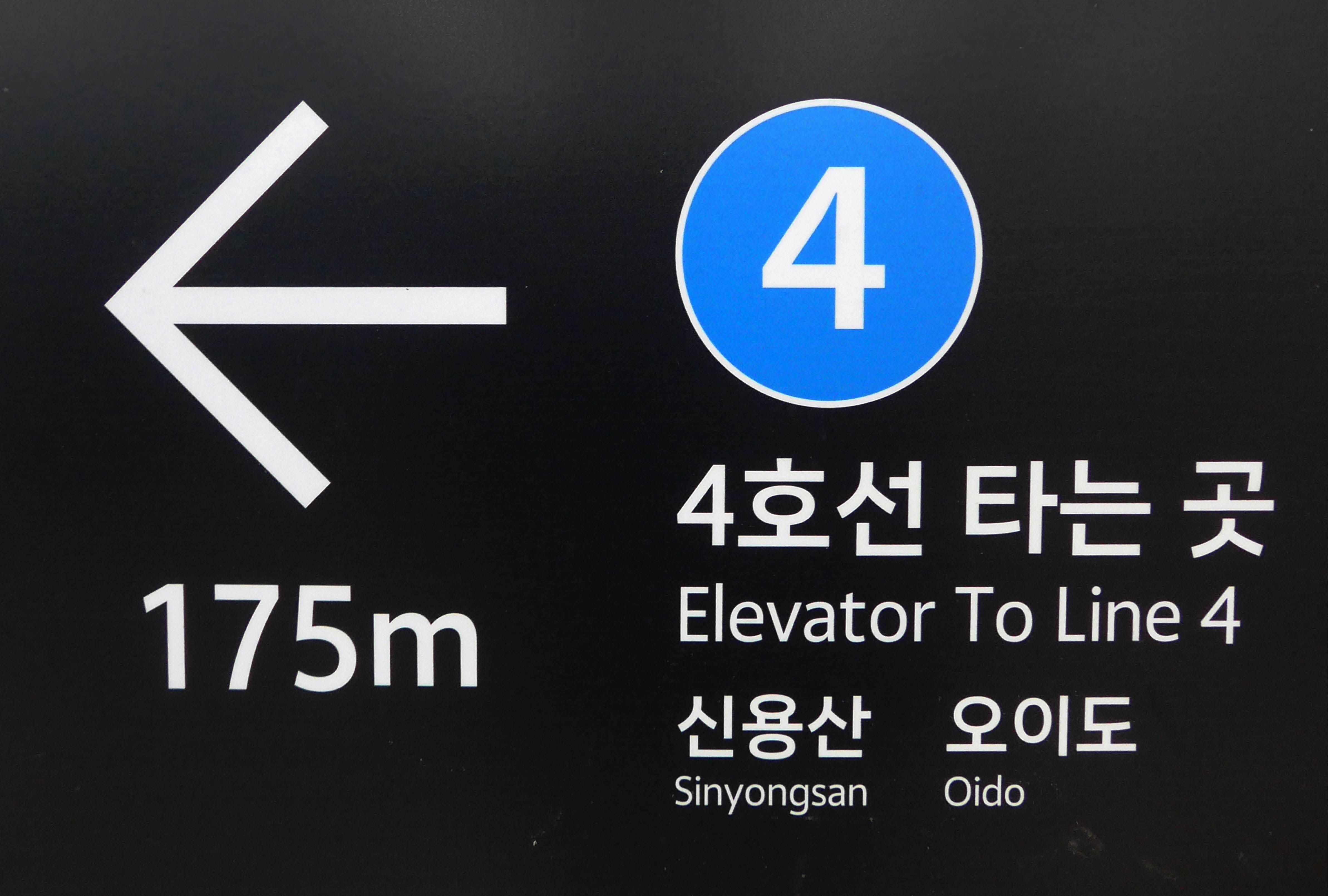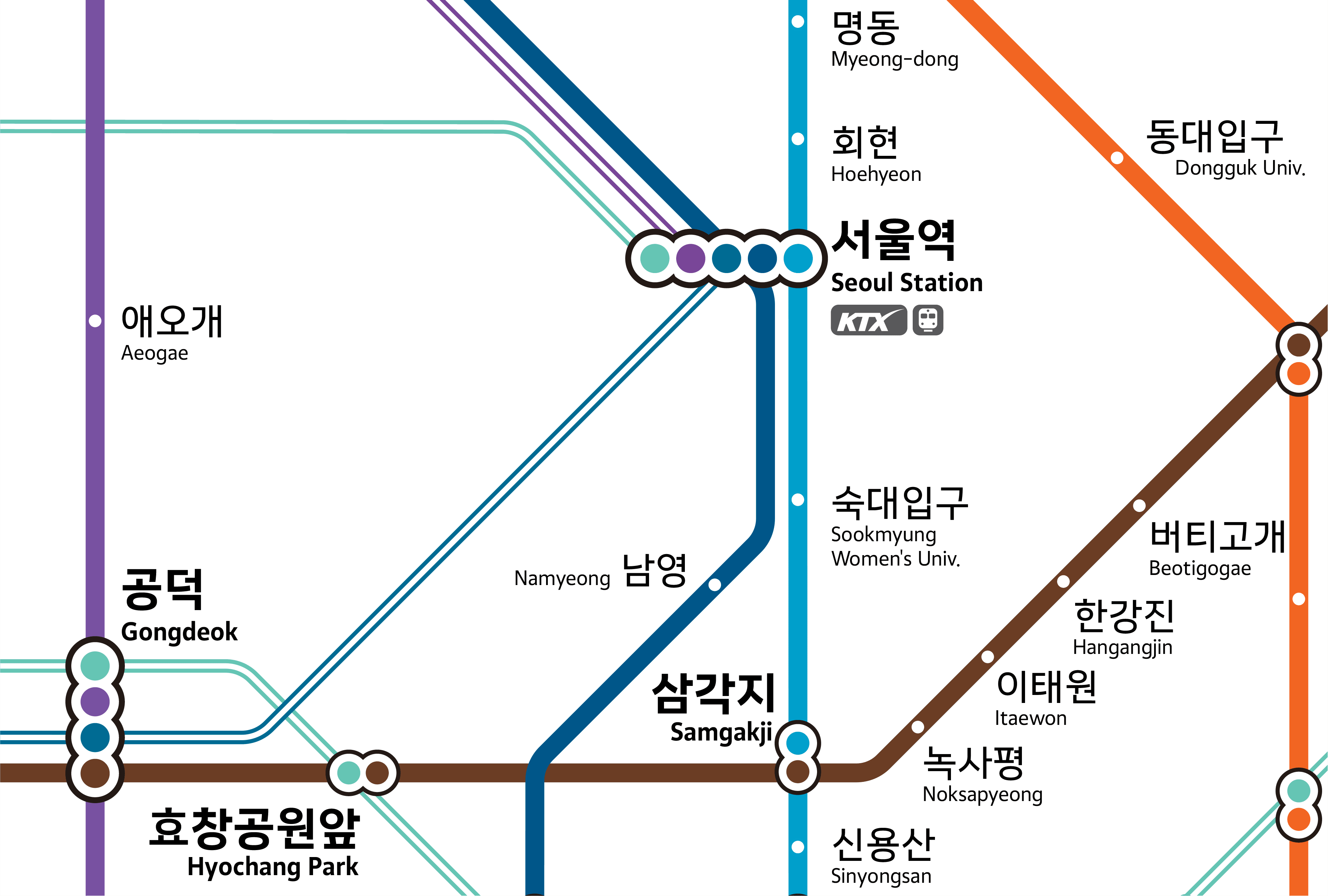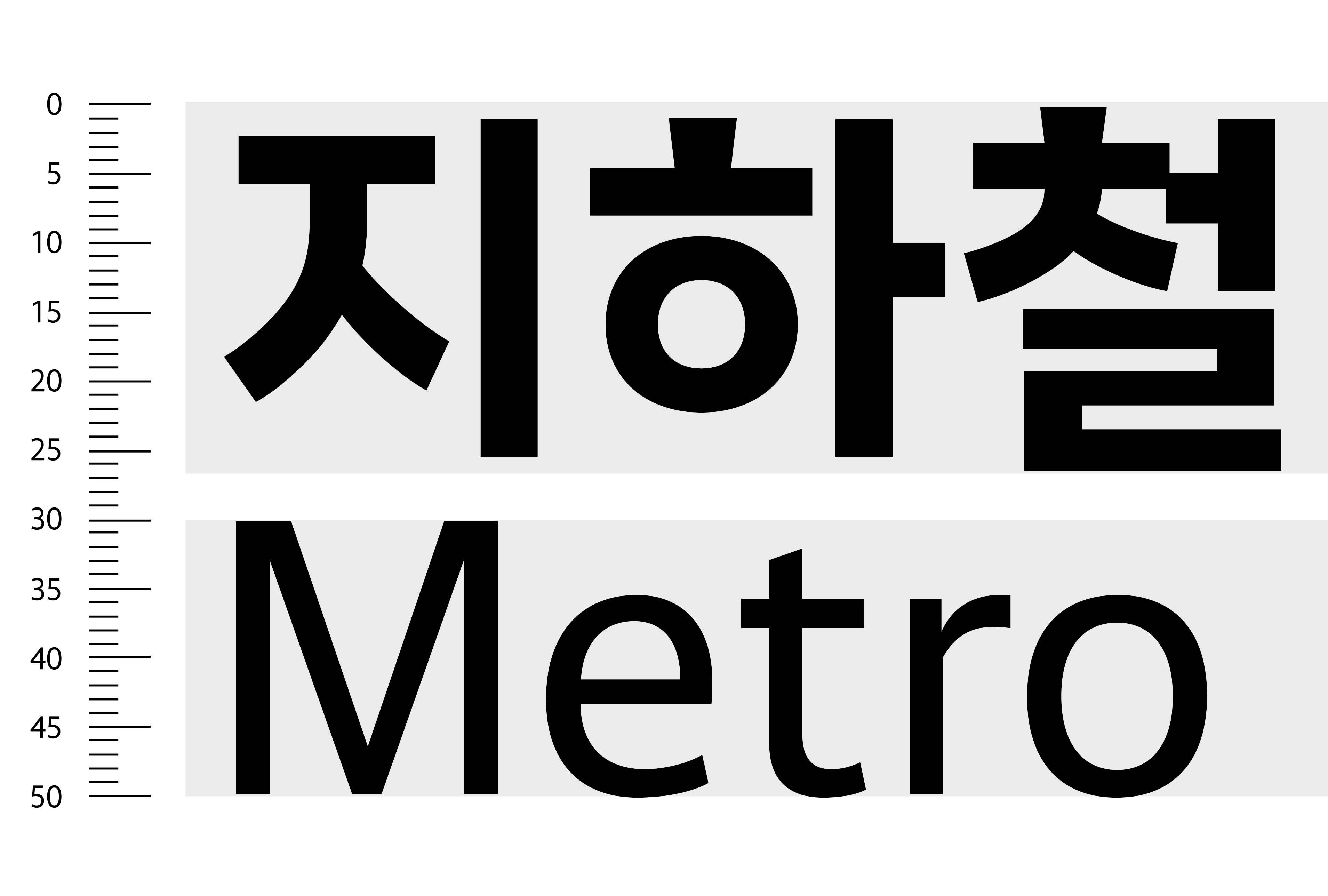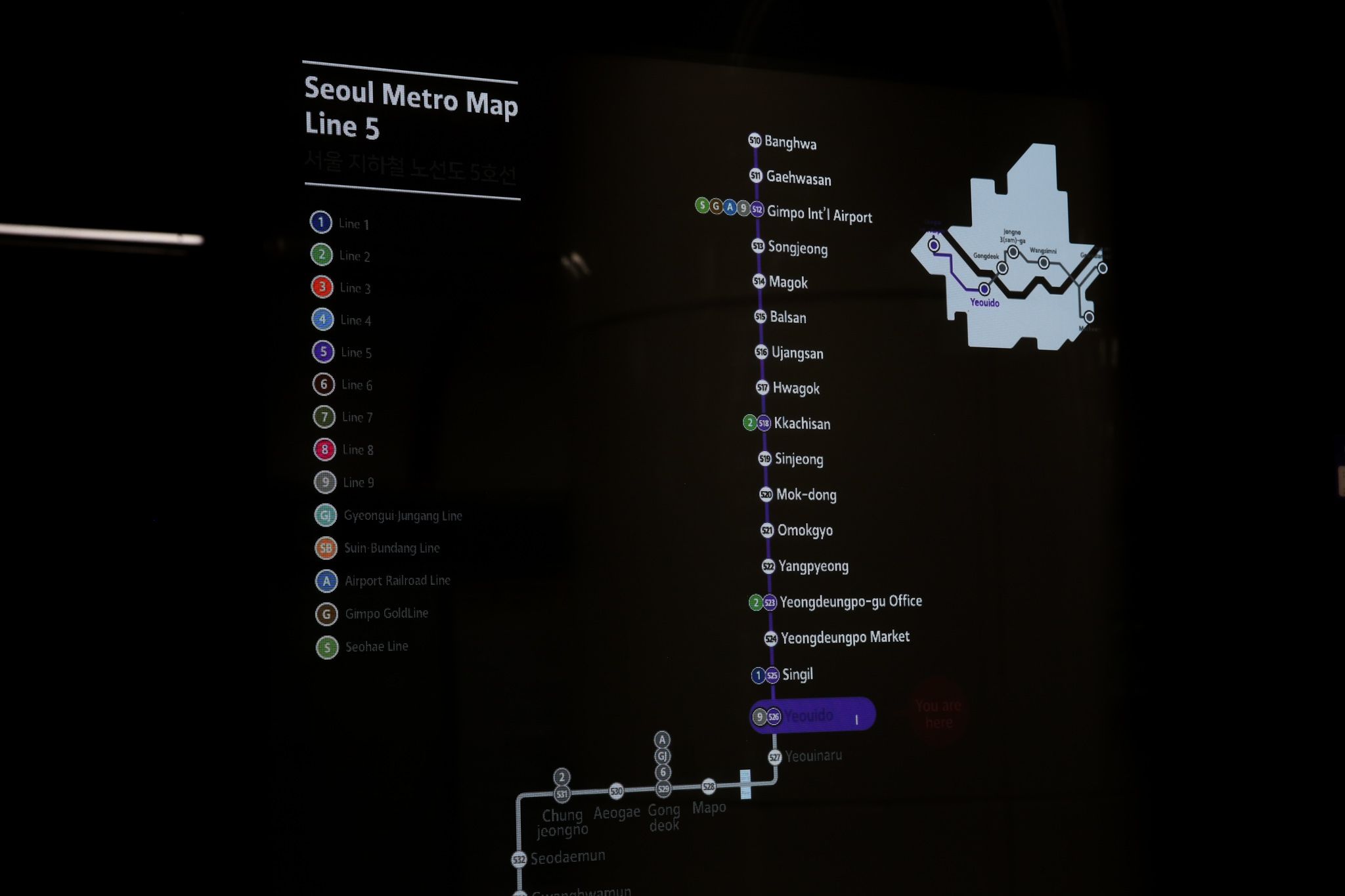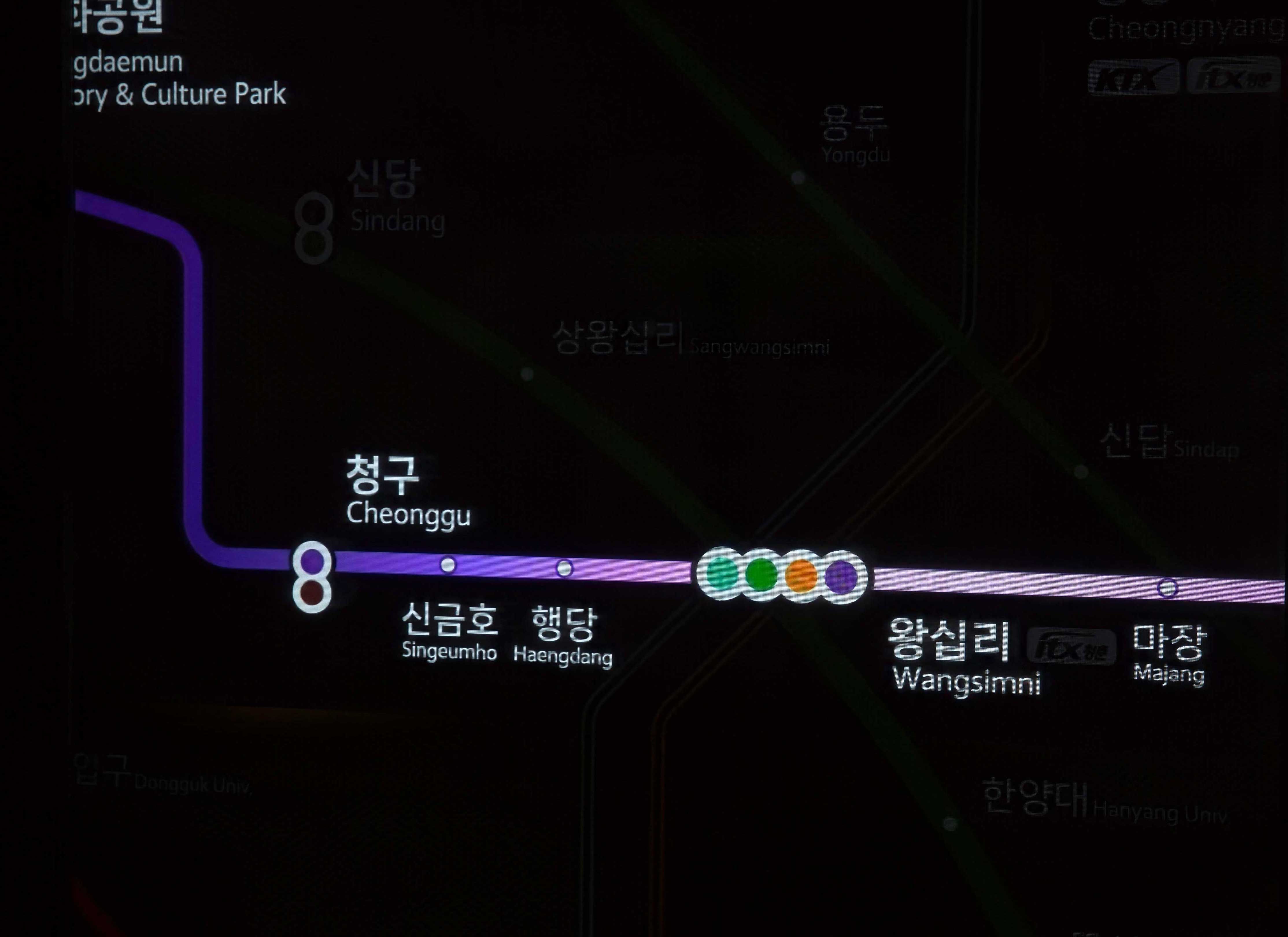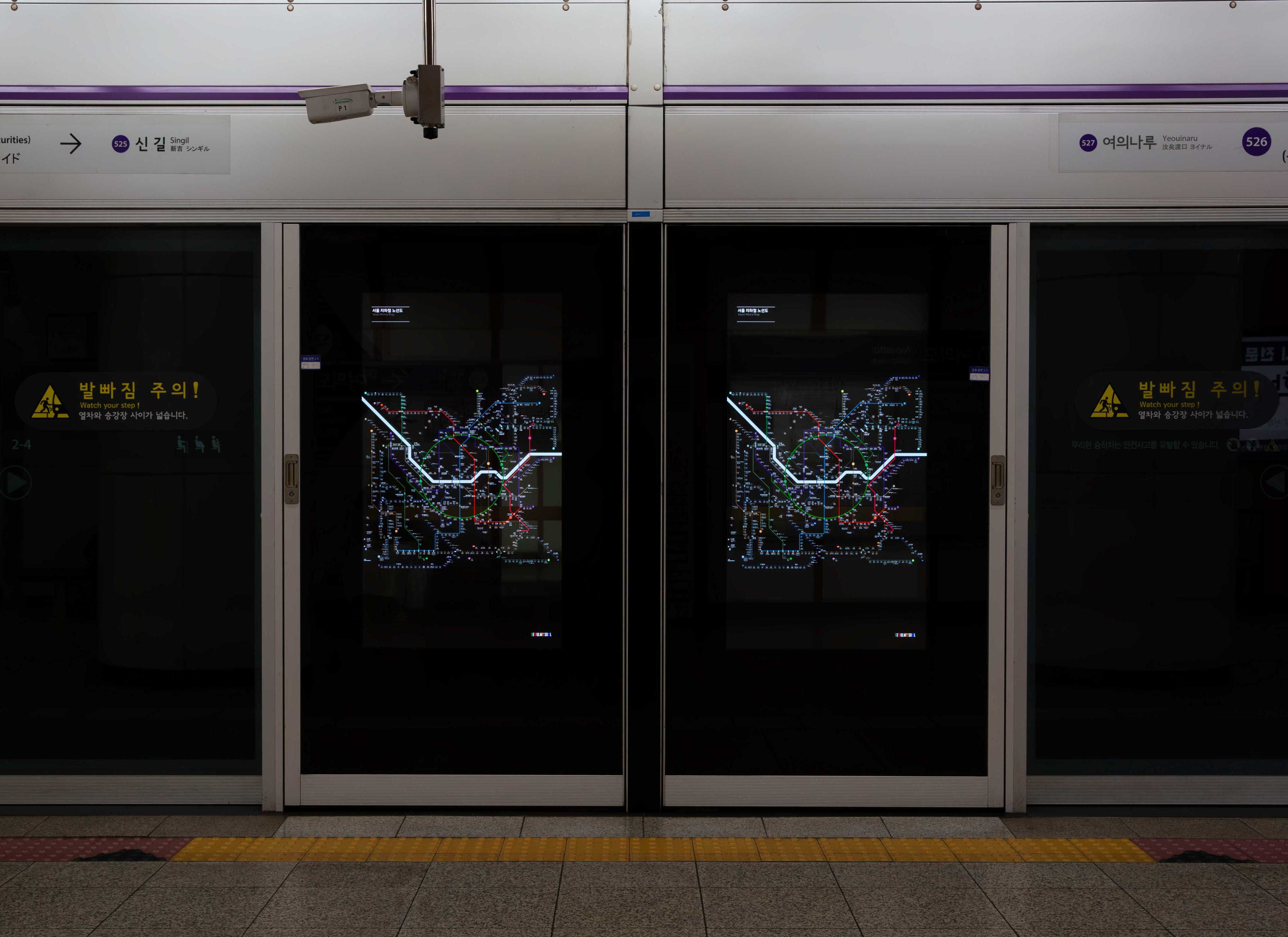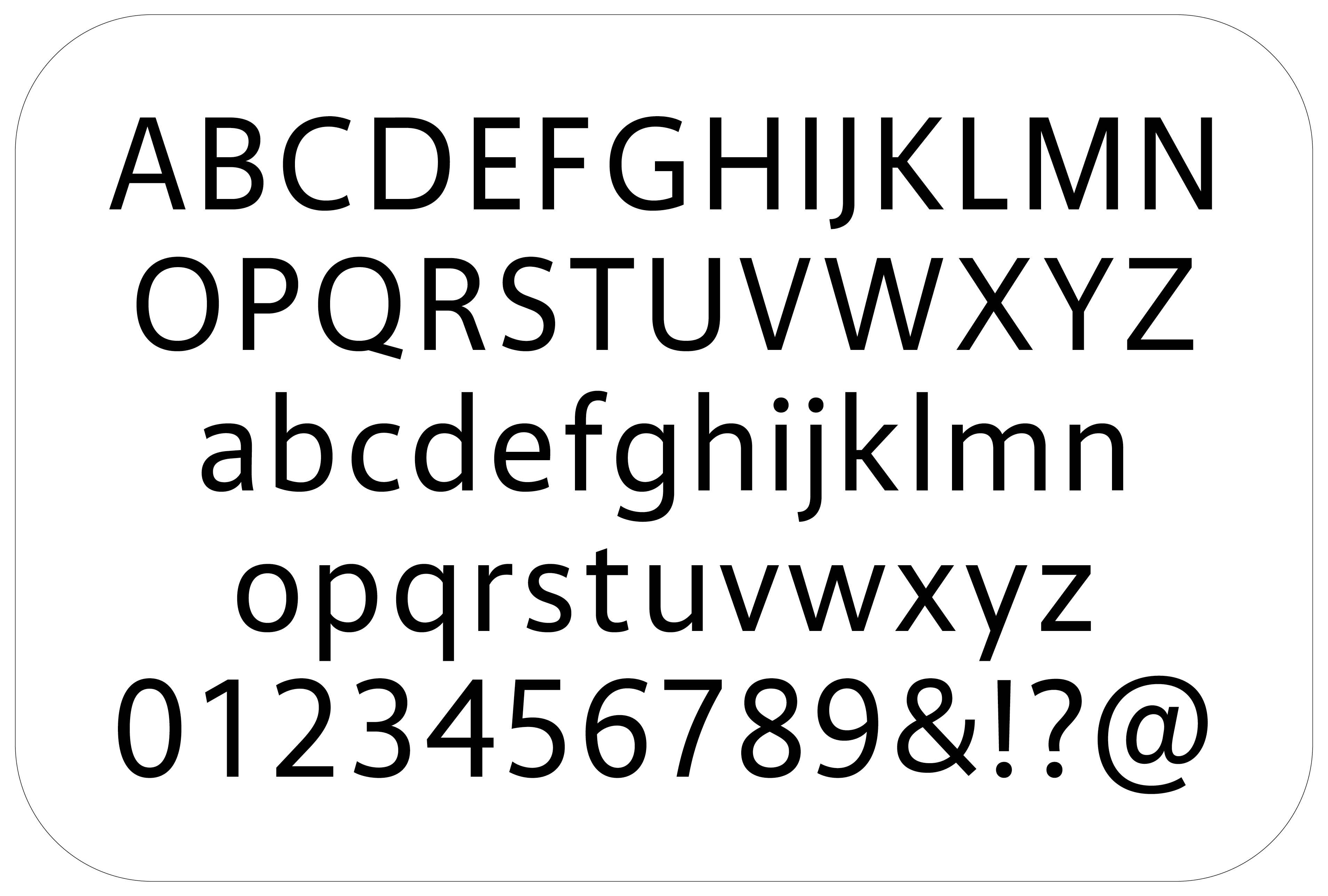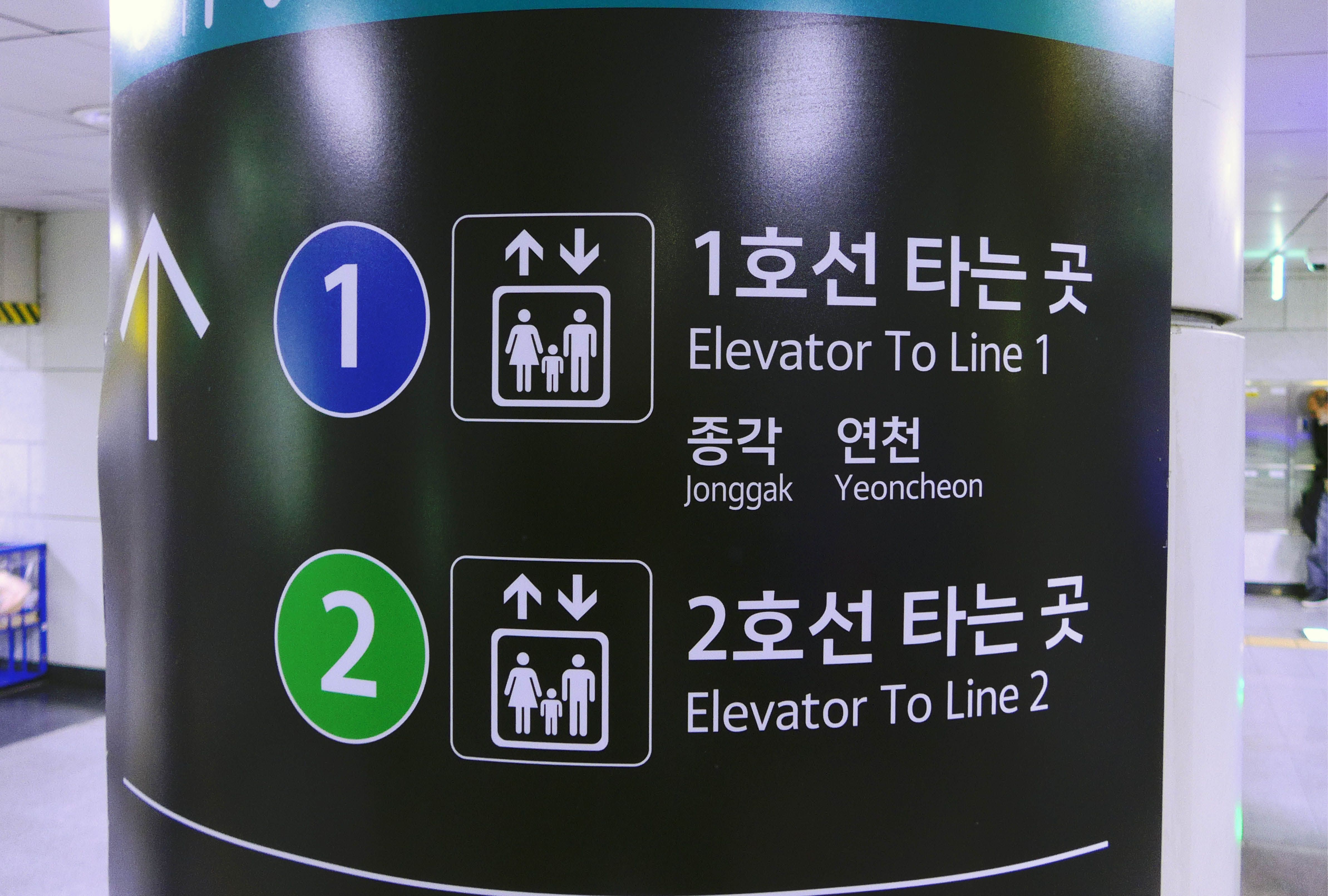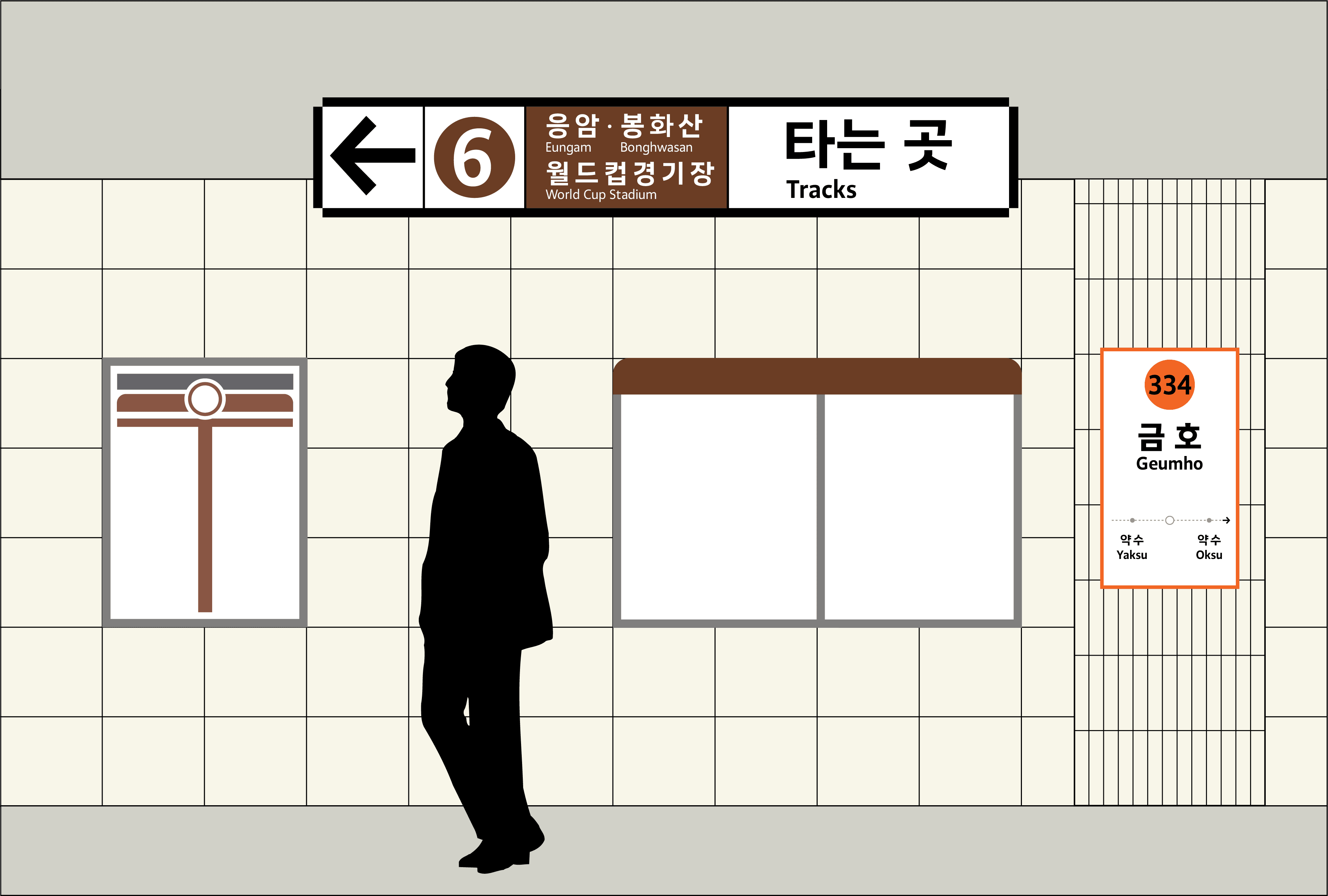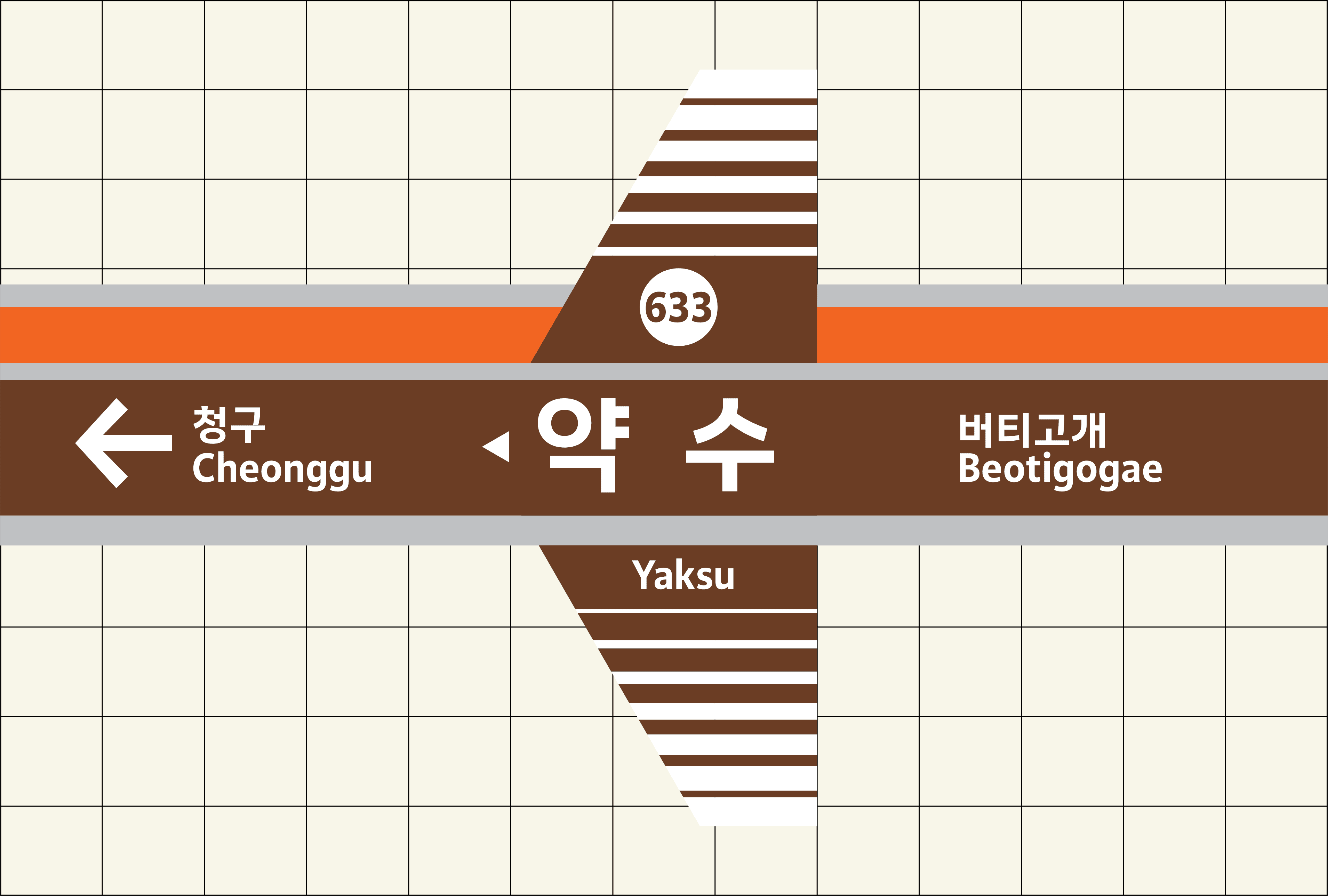
We designed the new custom typeface for Seoul City in collaboration with the Tlab, South Korean type foundry. This collaborative project brought together our expertise in the Latin script and Tlab’s craftsmanship in Hangul, to create a unified type system for one of the world’s most dynamic metropolises. Seoul is a vibrant city with a population of over 10 million people. Its public transport system alone serves more than two billion users annually, making legibility and functionality essential for any typographic solution implemented across the city’s infrastructure. The brief we received from the city emphasized clarity, readability, and a humanist tone. The typeface would be used across various modes of public transport including subways, buses, and signage throughout the city.
Designing a typeface for a major city means creating something functional yet distinctive and enduring. During the research phase, we researched typefaces used in urban environments worldwide, focusing particularly on wayfinding systems and transport networks in other global capitals. During the development of the typeface, the Seoul subway map was redesigned for the first time in 40 years. Knowing that the Seoul Alrim typeface would feature in the updated map, we prioritized simplicity, clarity, and long-term usability from the very beginning of the design process.
Tlab’s director, Yunjung Park, provided an initial sketch of the Hangul characters, which helped guide our approach to the Latin counterpart. We aimed to ensure that the design would balance well with the Hangul while also offering clear functionality for Latin users. Our aim was to ensure a visual harmony between both scripts, while maintaining the legibility and typographic integrity of the Latin characters. We explored a humanist style, with open counters, moderate proportions, and low contrast. Designing a typeface for a city like Seoul was both a unique opportunity and a meaningful challenge. Our goal was to create a system that is not only functional and accessible, but one that will stand the test of time, quietly supporting the identity and infrastructure of this remarkable city for years to come.